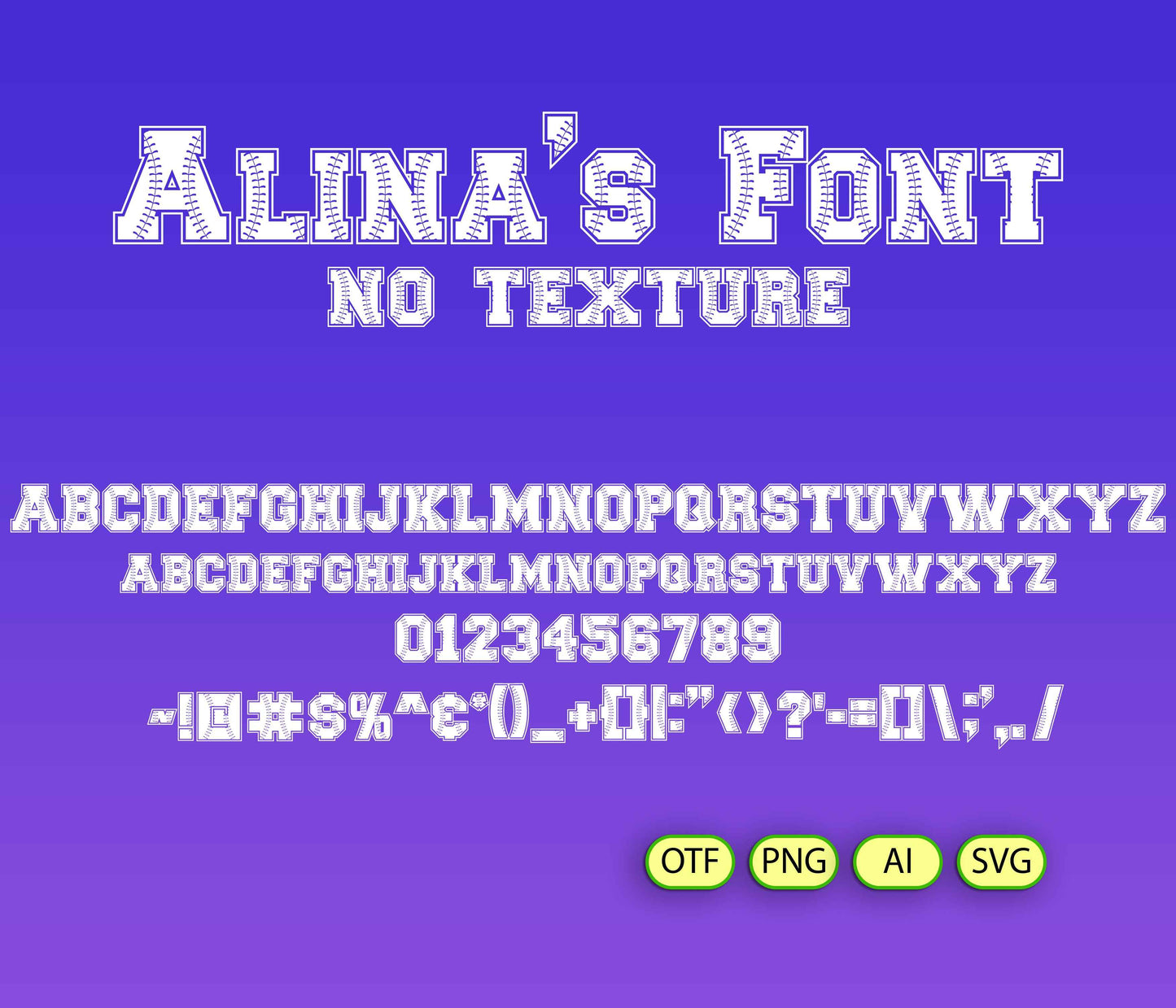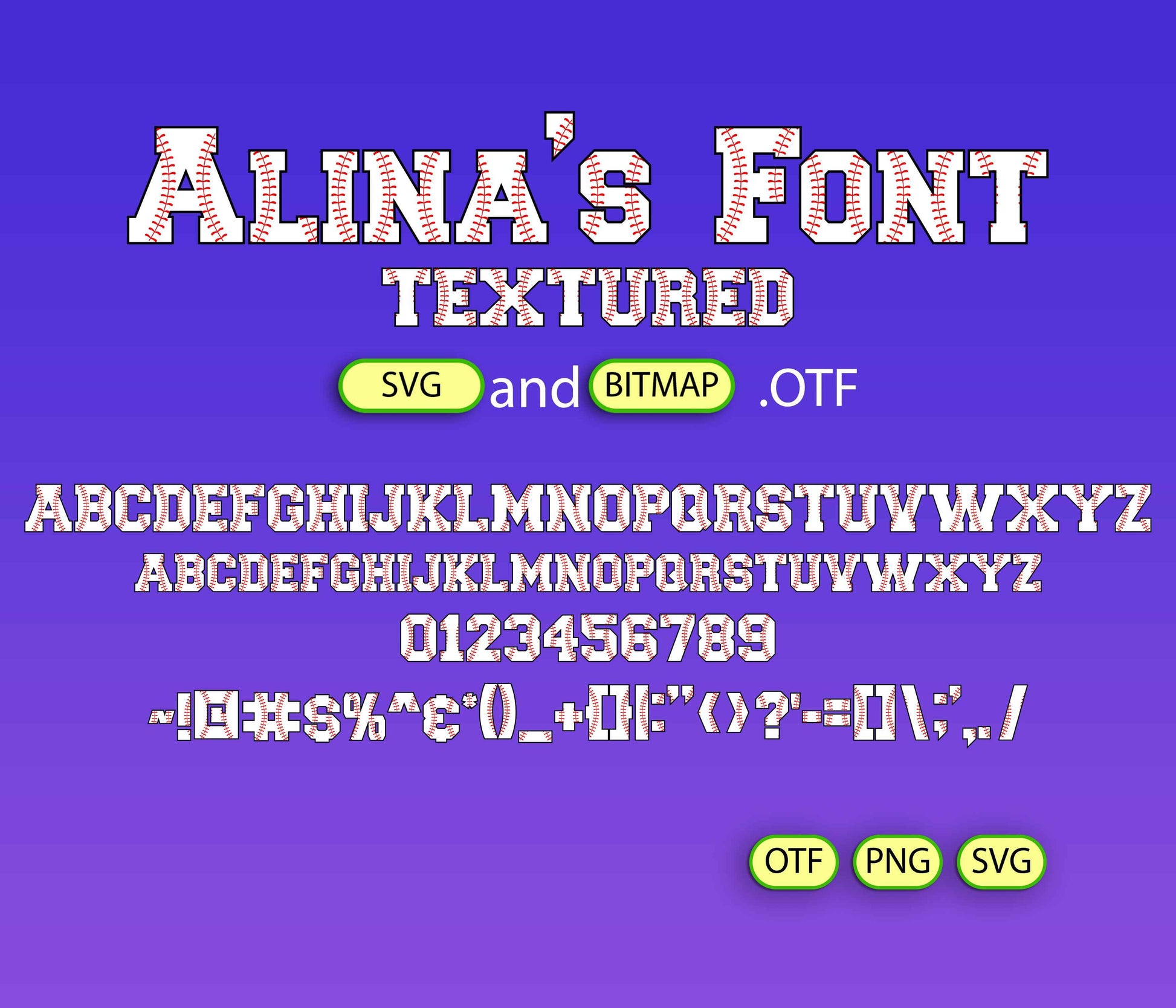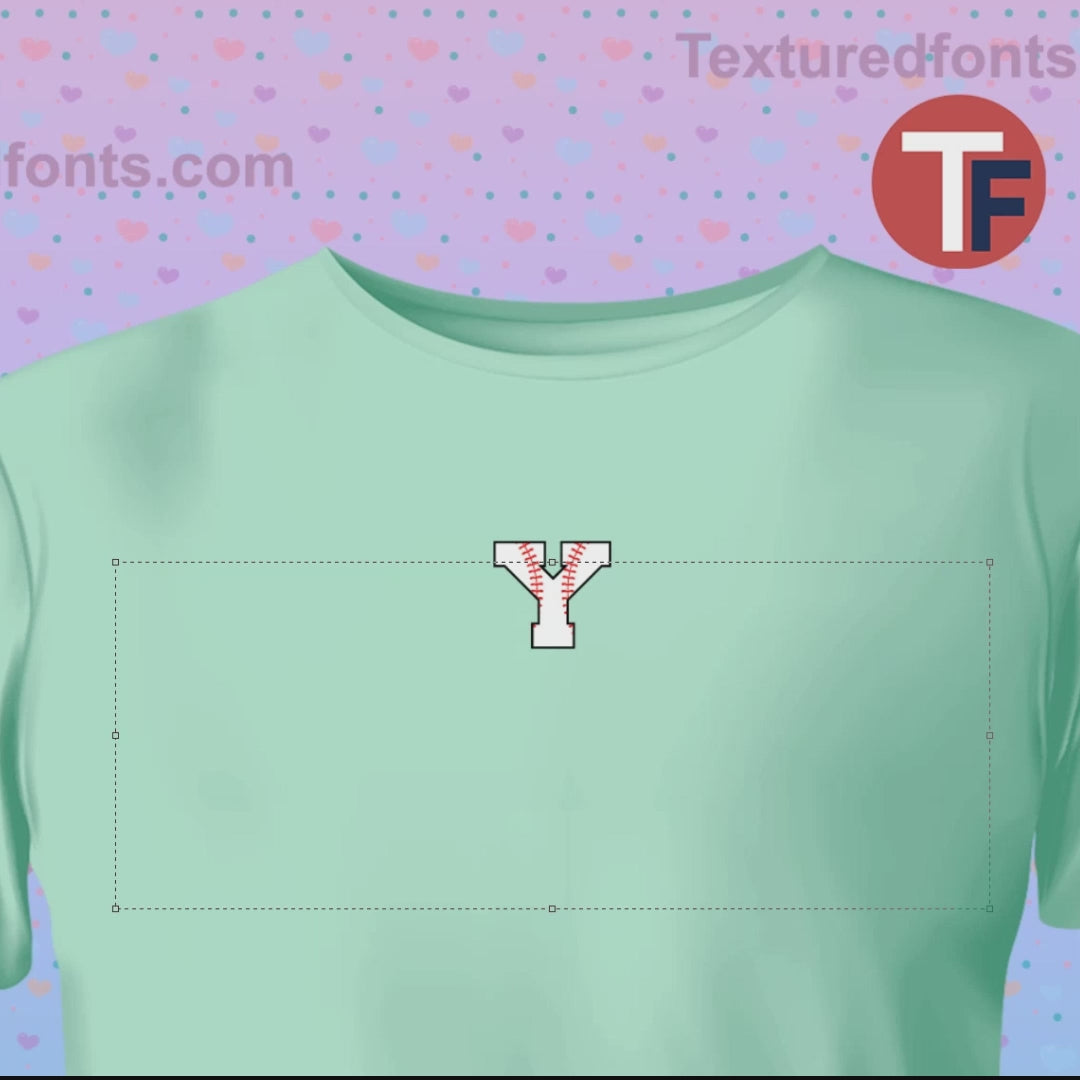
Baseball Classic Font Textured
Baseball Font: Swing for the Fences with Every Letter
Capture the spirit of the diamond with the Baseball font, designed to embody the excitement and nostalgia of America’s favorite pastime. This typeface takes inspiration from the classic, bold aesthetics found in baseball logos, uniforms, and stadium graphics, making it perfect for sports enthusiasts, designers, and anyone looking to inject a bit of classic American sports tradition into their projects.
The Baseball font package includes both a textured version that offers a vintage, worn-in look ideal for retro designs and a sleek, free non-textured version that ensures clarity and readability for more contemporary projects. This non-textured version is compatible with all software, including Canva, allowing for seamless use in both digital and print media without any loss of quality or functionality.
The Baseball font is not just a tool for typography; it's an integral part of celebrating and promoting the beloved game of baseball. With its powerful presence and versatile design, it's equipped to handle everything from professional sports branding to personal projects for baseball fans. Whether you're designing for the major leagues or a local team, the Baseball font ensures your creations hit it out of the park, every time.